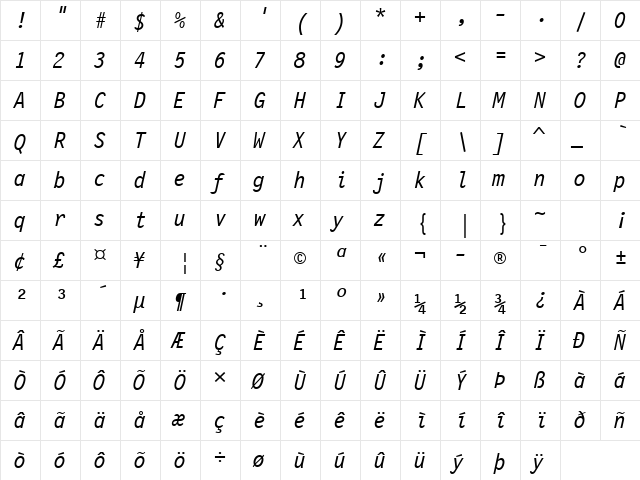
LettrGoth12 BT Italic
Design Context for LettrGoth12 BT Typeface
LettrGoth12 BT is a composed and adaptable typeface that performs quietly and consistently across a wide range of design contexts. The dynamic lean of this cut emphasises speed and emphasis in any layout.
Pro Tip: Try LettrGoth12 BT for annotation and caption copy alongside an upright companion — the contrast in angle creates a dynamic but ordered typographic system.